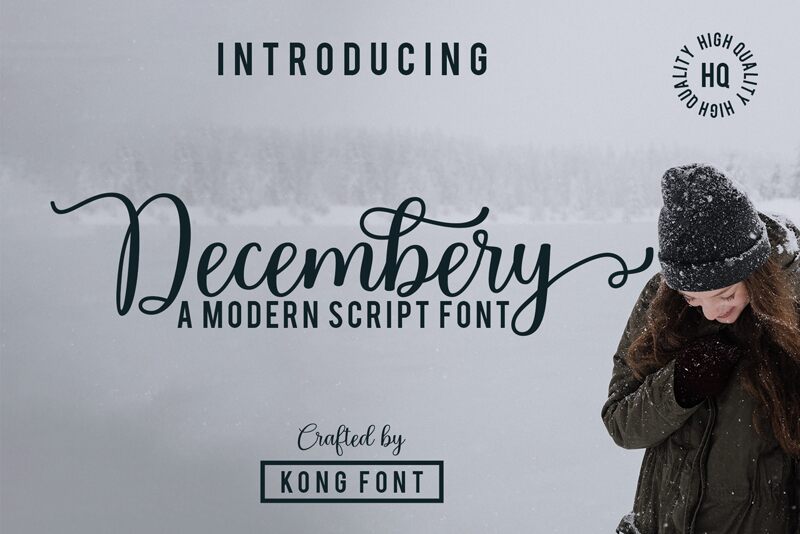
Decembery font family, designed by Kong Font, contains 4 font styles combining elegance with a contemporary twist. As a free font family for personal use, it draws inspiration from the smooth and fluid movement of handwriting, presenting an expressive flow and modern flair in its design. The collection builds upon this stylistic foundation, offering outputs that appear sophisticated and artistic. Subtle decorative swashes are present, giving the characters a distinct personal touch and artistic charm fit for creative projects.
Create a spectacular greeting card project that relates to the Christmas theme, or embellish brochures that’ll be the talk of the town with each issue. This font is also fitting for branding designs, advertisements, magazine and newspaper headlines, logotypes, and book covers. The sea also calls for wanderers who’ll gladly use Decembery for travel blogs, as well as inspirational quotes shared with enthusiasts.